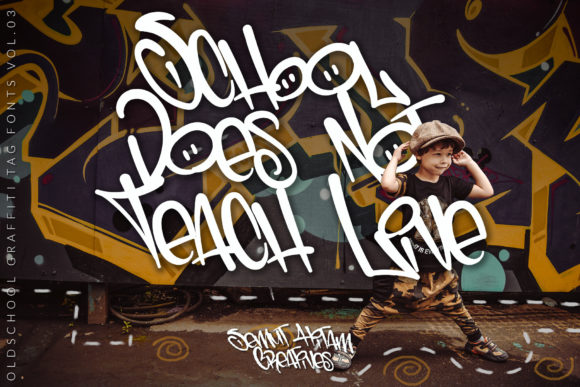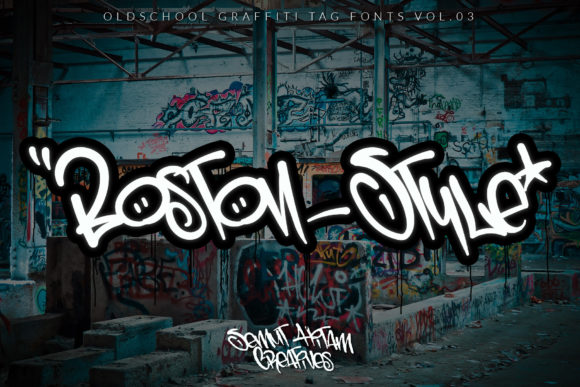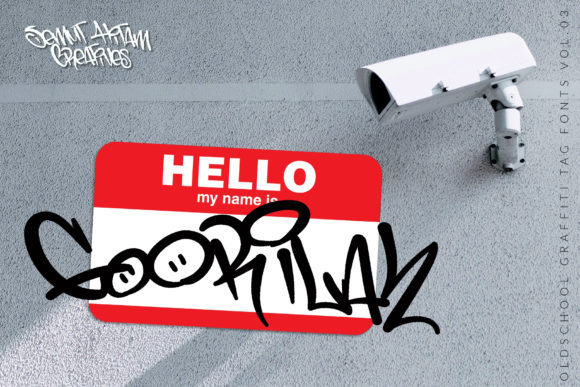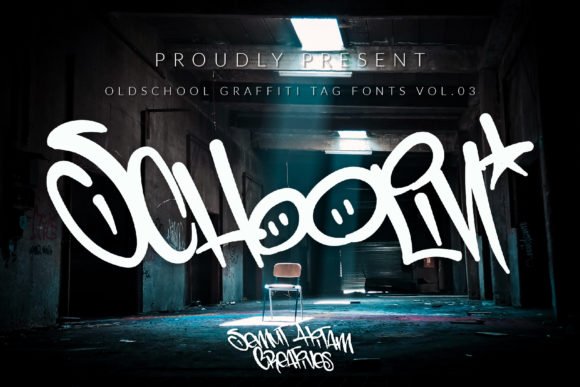
Introduction to Schoolin Font
Schoolin is a cool, graffiti looking display font.
Add this font to each of your casual design ideas and they will look amazing .